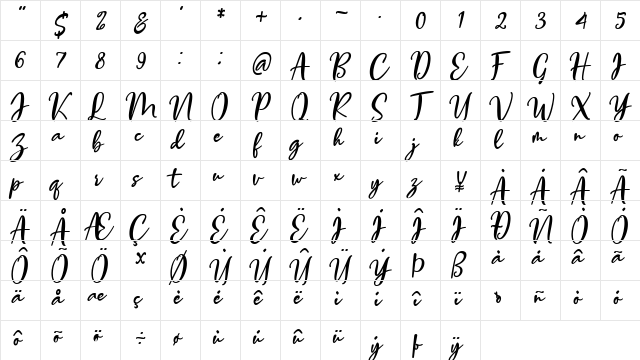
valentine vibes Regular
Design Context for valentine vibes Typeface
valentine vibes is a composed and adaptable typeface that performs quietly and consistently across a wide range of design contexts.